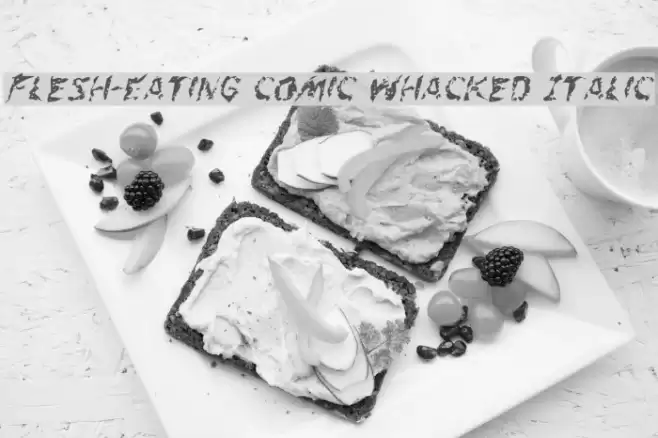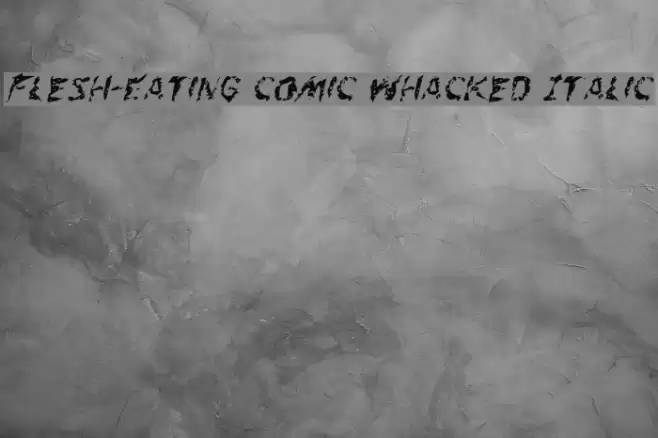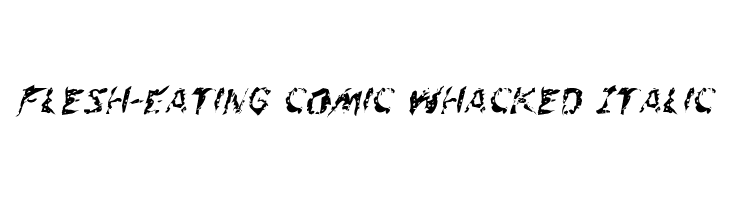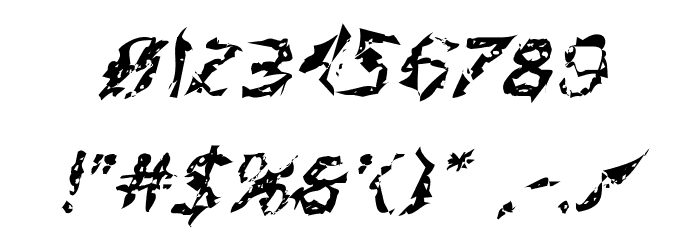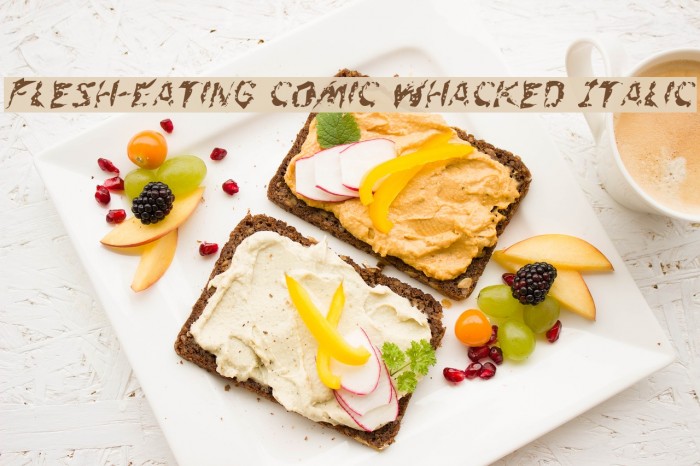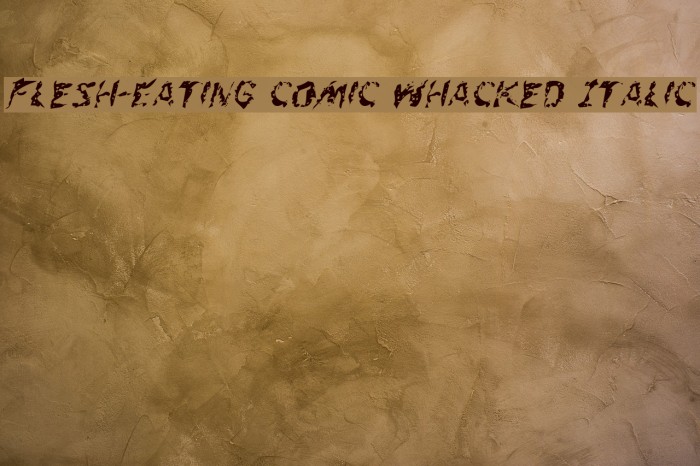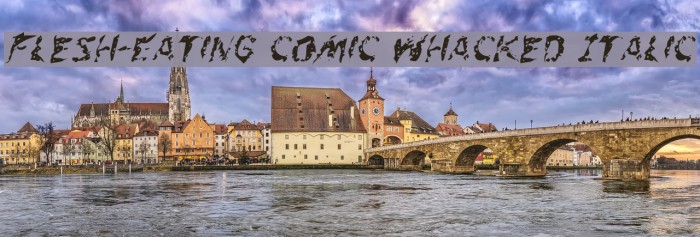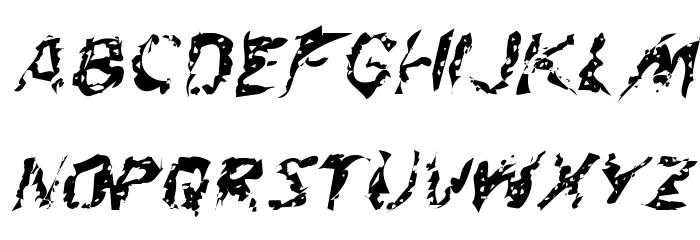
Flesh-Eating Comic Whacked Italic Font
Flesh-Eating Comic Whacked Italic Description
This font features a chaotic and distressed style, with jagged edges and irregular shapes that give it a raw, edgy appearance. The letters appear as if they have been eroded or eaten away, creating a sense of decay and destruction. This font is italicized, adding a dynamic and slanted look to the already aggressive design. The uppercase and lowercase letters maintain a consistent theme, with numbers and special characters following suit. The overall effect is striking and attention-grabbing, making it ideal for projects that require a bold and unconventional aesthetic.
A chaotic, distressed italic font with jagged, eroded edges from Uncategorized fonts.
- Proposed Projects: Ideal for horror-themed designs, edgy posters, album covers, or any project requiring a bold, unconventional aesthetic.